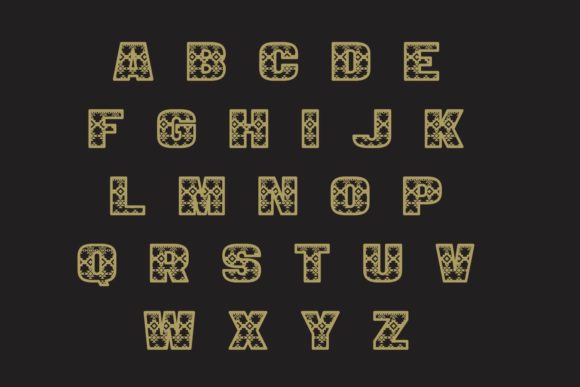
Unleash Your Inner Bohemian: Discover the Magic of Boho Aztec Font
Do you remember the moment when you stumbled upon the perfect font to match your latest creative project? For many designers, it’s a moment of pure joy and excitement. For me, it was when I discovered the enchanting Boho Aztec Font. This adorable font with its split letters is an instant winner for any digital project, from cards and invitations to weddings and logos.
The Boho Aztec Font is more than just a pretty face – it’s a valuable tool for designers looking to add a unique touch to their work. Its versatility makes it perfect for a wide range of crafty ideas, from letterheads and titles to stationery. Whether you’re a seasoned pro or a budding designer, this font is sure to inspire your creativity and bring your projects to life.
Key Features of Boho Aztec Font
- Unique Characteristics: Distinctive Aztec-inspired patterns and bohemian flair, making it perfect for artistic and creative projects
- Style Variations: Includes 6 different font styles, each with its own unique twist on the Aztec-inspired design
Designer Review: Boho Aztec Font
When I first laid eyes on the Boho Aztec Font, I was immediately drawn to its eclectic and bohemian vibe ✨. The font’s unique blend of Aztec and tribal influences creates a visually striking effect that’s perfect for designers looking to add some edge to their projects. The font’s flexibility in terms of font sizes and styles is also a major plus, making it easy to adapt to a variety of design contexts.
However, I do have a few reservations about the font’s limitations ⚠️. Firstly, the font’s legibility can be a bit of a concern, particularly at smaller font sizes. This may make it challenging to use in certain design scenarios where readability is a top priority. Additionally, the font’s bold and playful style may not be to everyone’s taste, and some users may find it too flashy or overwhelming.
Overall, I’d say that the Boho Aztec Font is a solid choice for designers looking to add some visual interest to their projects ✨. While it may not be the most versatile or legible font out there, its unique style and flexibility make it a great option for designers who want to push the boundaries of their creativity.
- Pros:
- Unique and eclectic style ✨
- Flexible in terms of font sizes and styles
- Cons:
- Legibility can be a concern, particularly at smaller font sizes
- May be too flashy or overwhelming for some users
Use the Boho Aztec font for:
1. Bohemian-inspired designs and graphics.
2. Fashion and lifestyle branding.
3. Spiritual and wellness-related content.
1. Pair the Boho Aztec font with other bohemian-inspired fonts for a cohesive look.
2. Use the font in combination with bold, bright colors to create a visually striking design.
3. Experiment with different font sizes and styles to add depth and interest to your design.
Alternatives to Boho Aztec Font
Great Vibes is a beautiful, elegant script font perfect for creating a bohemian vibe. It’s ideal for use in wedding invitations, quotes, and other creative projects where a flowing, handwritten feel is desired.
Compared to Boho Aztec Font, Great Vibes has a more refined and sophisticated look, making it a great choice for projects that require a touch of luxury. While Boho Aztec Font has a more distressed and eclectic feel, Great Vibes is more polished and elegant.
Alex Brush is a beautiful, handwritten font that’s perfect for creating a bohemian or rustic feel. It’s ideal for use in invitations, quotes, and other creative projects where a personal and expressive touch is desired.
Compared to Boho Aztec Font, Alex Brush has a more whimsical and playful feel, making it a great choice for projects that require a touch of personality. While Boho Aztec Font has a more eclectic and distressed look, Alex Brush is more fluid and expressive.